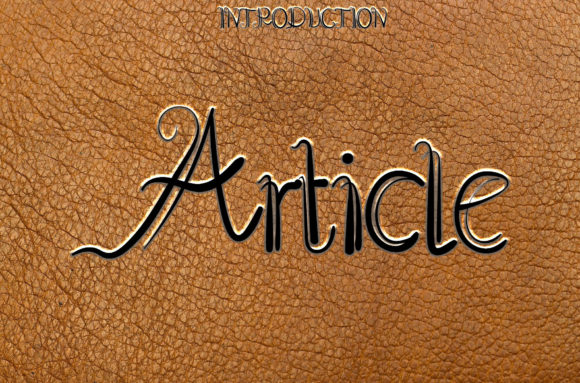
The Ultimate Guide to Article Font: Elevate Your Designs with Style
I’ll never forget the time I was working on a project for a client’s t-shirt line, and I just couldn’t find the right font to match their quirky vibe. The client wanted something cool, neat, and adaptable – a font that would make their designs stand out on sportswear, logos, advertisements, and more. That’s when I stumbled upon Article Font, and let me tell you, it’s been a game-changer ever since.
An Honest Review of Article Font
So, what makes Article Font so special? Here are a few things I love about it:
- ✨ Unique and quirky personality: Article Font has a distinct style that sets it apart from other display fonts.
- ✅ Highly adaptable: It works well on various design materials, from t-shirts to logos, and even advertisements.
- 💡 Easy to read: Despite its quirky vibe, Article Font remains legible, even at smaller sizes.
Of course, no font is perfect, and Article Font has a few small quirks:
- 🤔 Limited use in formal contexts: Article Font is best suited for creative, casual designs – it might not be the best fit for more formal projects.
- ⚠️ Glyph support: While Article Font has a range of OpenType features, some users might find the glyph selection a bit limited.
The Backstory Behind Article Font
Article Font was designed with the modern designer in mind. Its creator wanted to craft a font that was both stylish and versatile – perfect for a wide range of design applications. With its unique personality and adaptability, Article Font has quickly become a favorite among designers and crafters.
| Font Name | Article Font |
| Author | Sansana |
| What type of projects is Article Font best suited for? | Article Font is perfect for creative projects like t-shirts, sportswear, logos, advertisements, and more. |